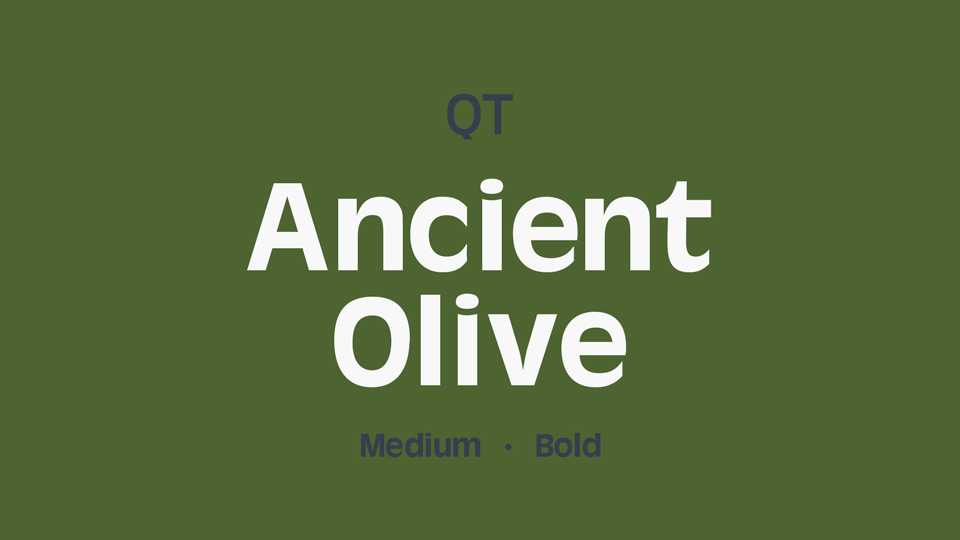
Download Ancient Olive typeface, a sans serif font family in two weights based on the Antique Olive font designed by Roger Excoffon for the French typefoundry. Ancient Olive is a distinctive typeface that can be used in a variety of ways, from text work to display.